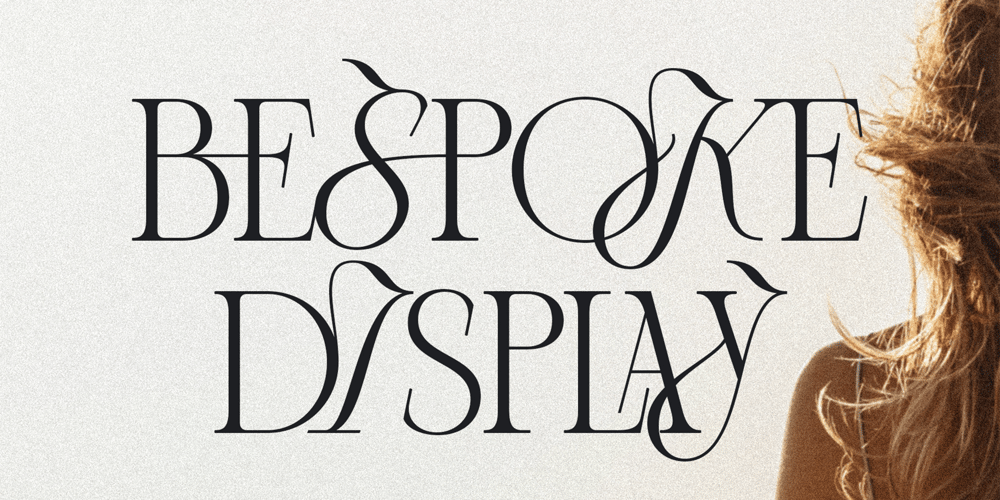
Bespoke Display Font Family was designed by SilverStag and published by SilverStag. Bespoke Display contains 1 styles and family package options. Introducing Bespoke Display, a font that captures the essence of elegance and creativity by seamlessly merging the classical charm of a modern serif with the flowing grace of an elegant script. In Bespoke Display, you’ll find a font that defies convention, creating a harmonious symphony between serif and script letters, crafting a unique visual language that speaks volumes.